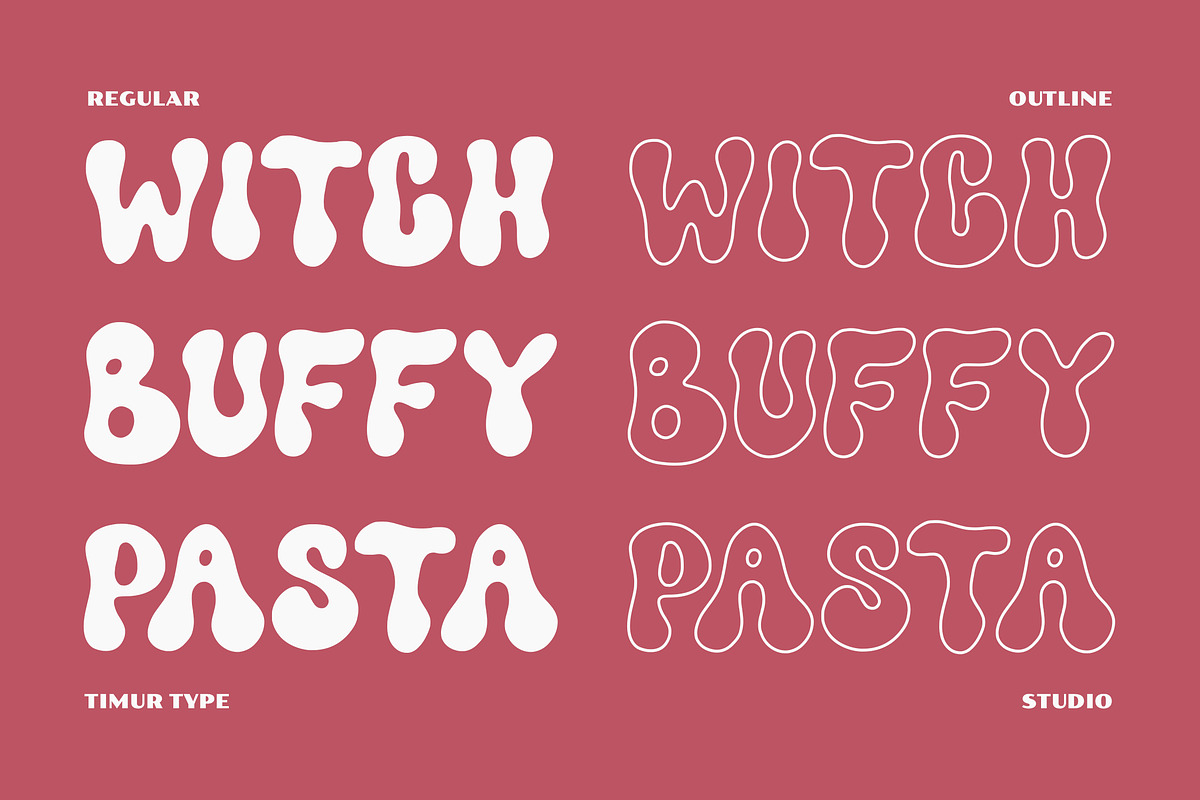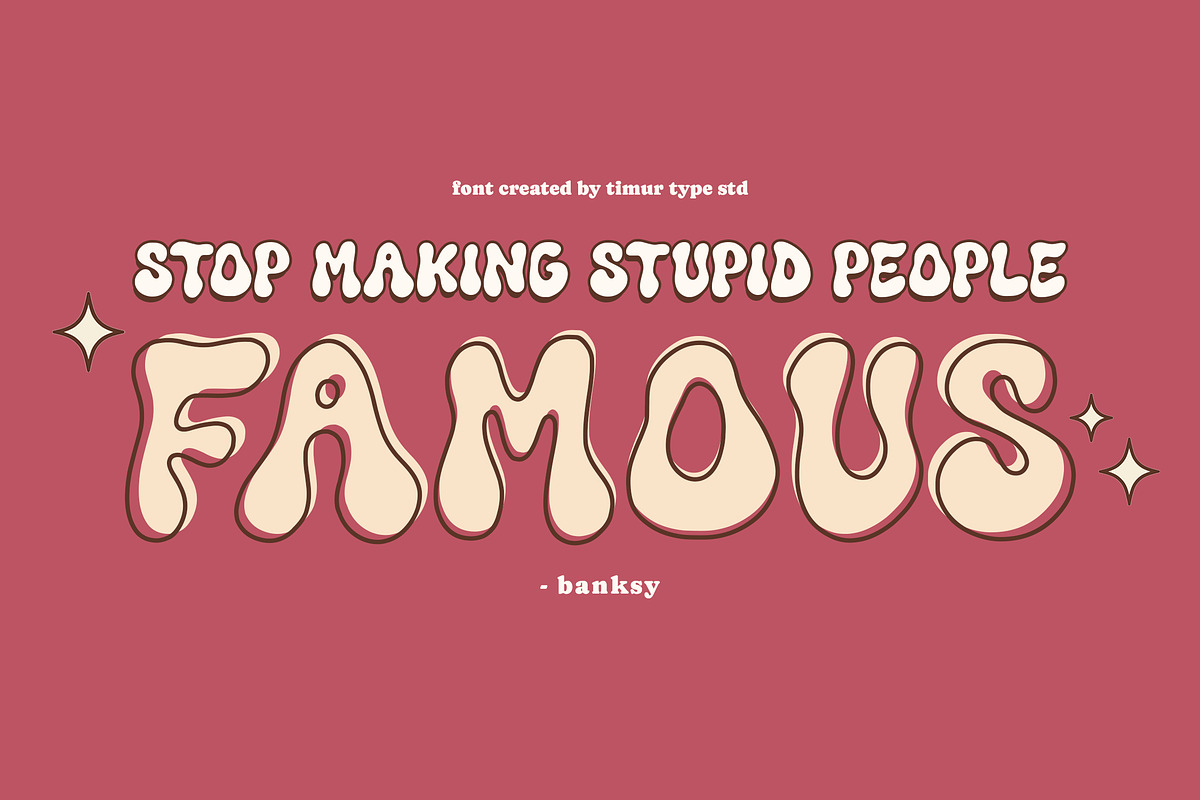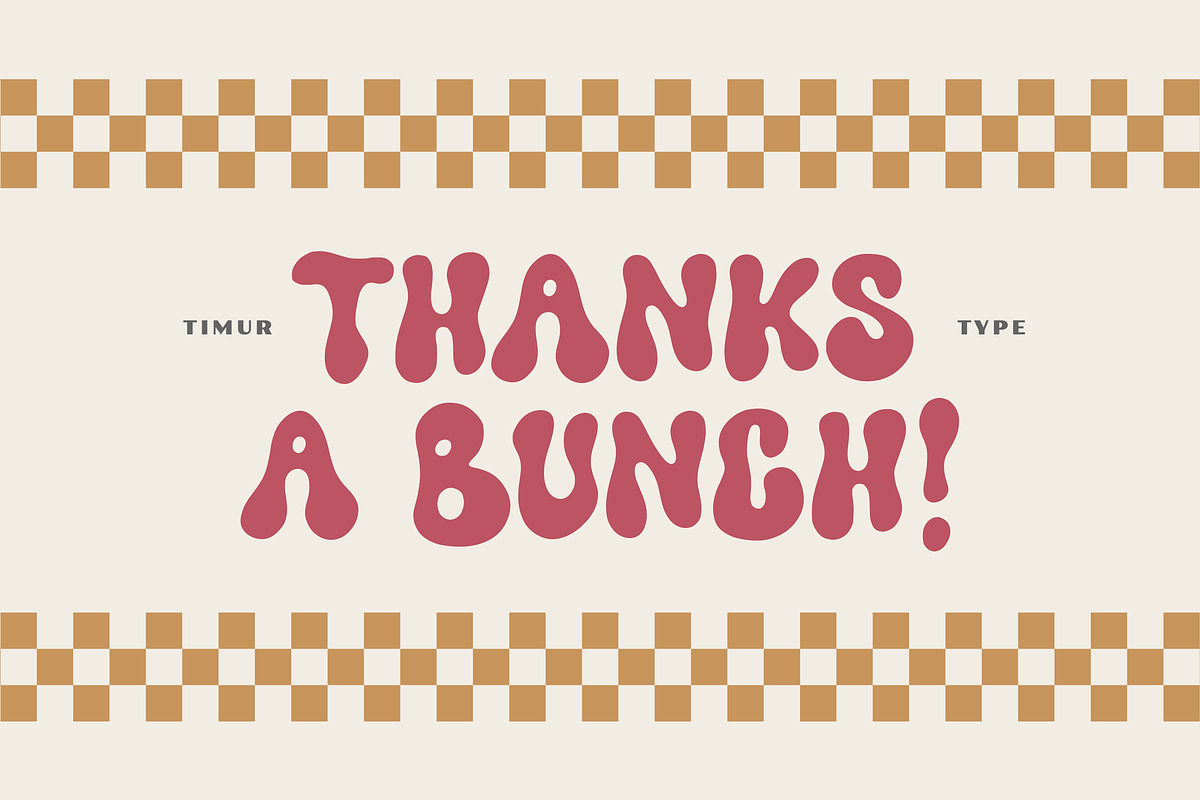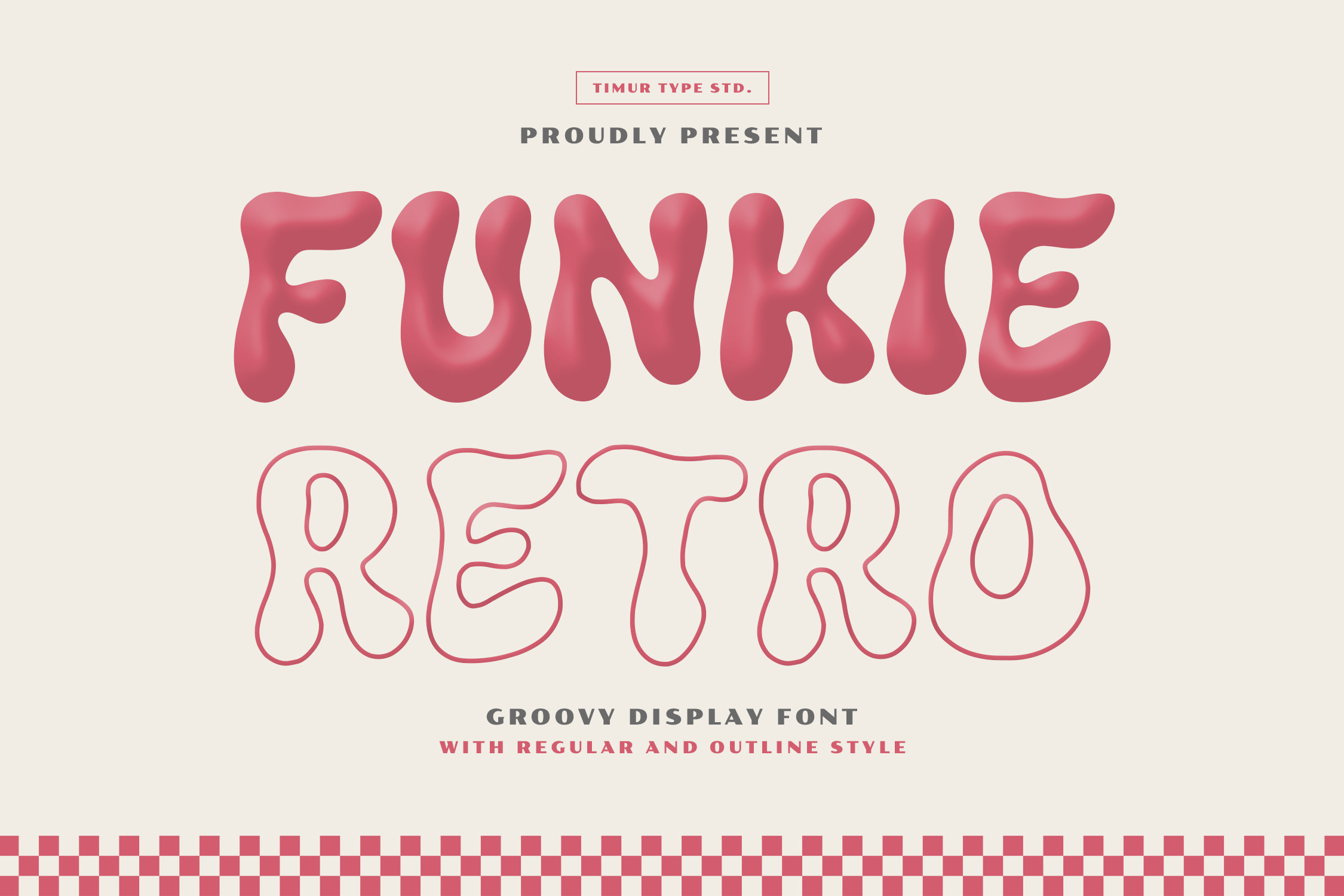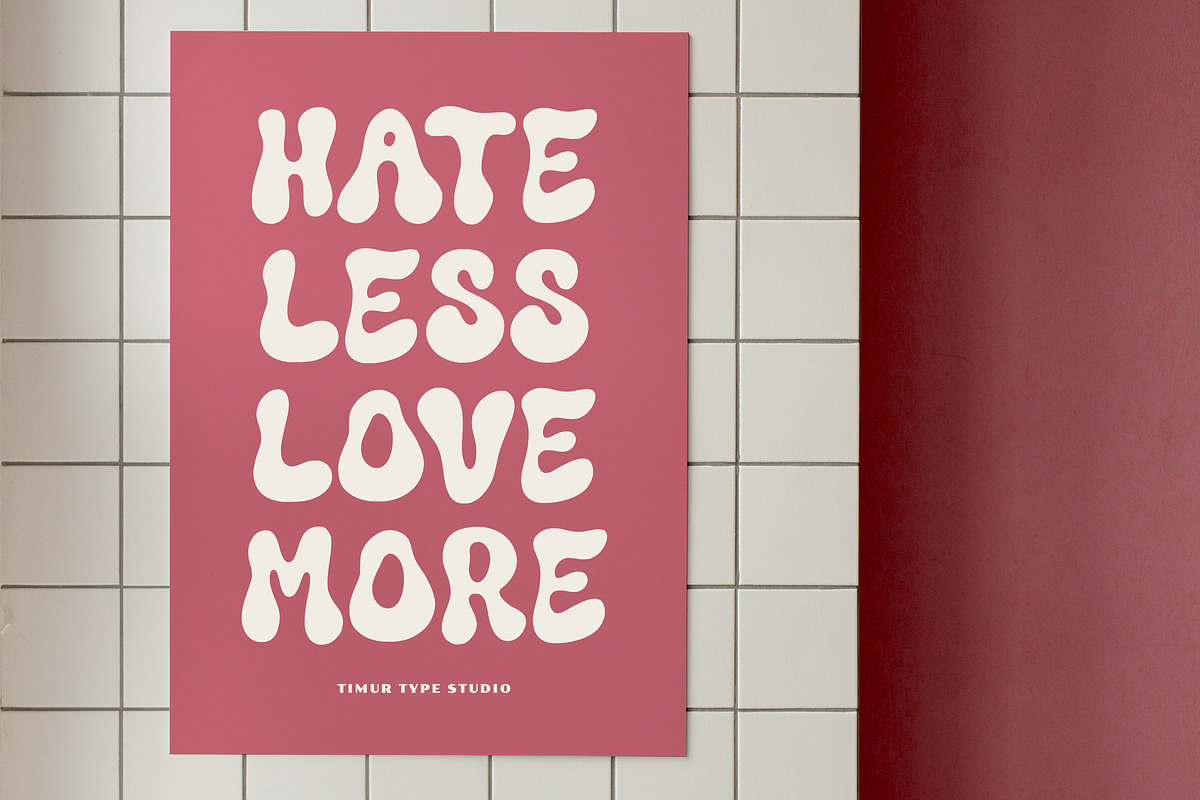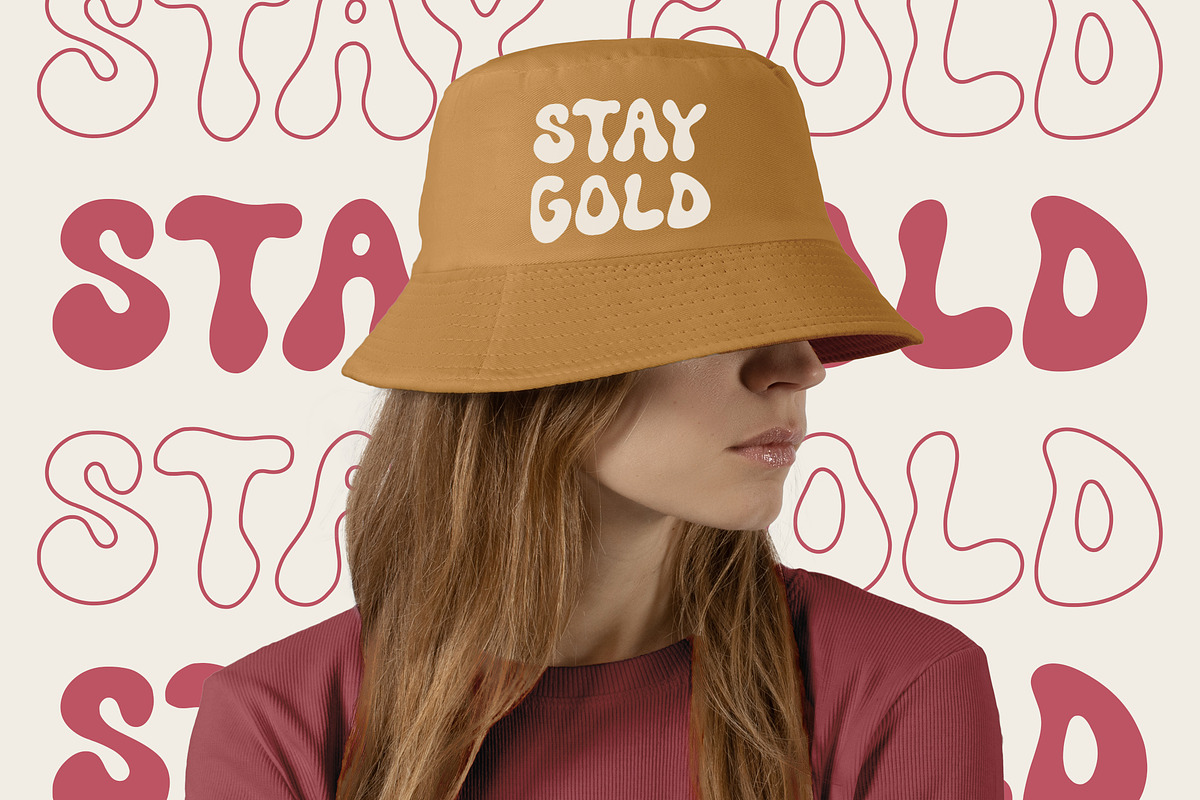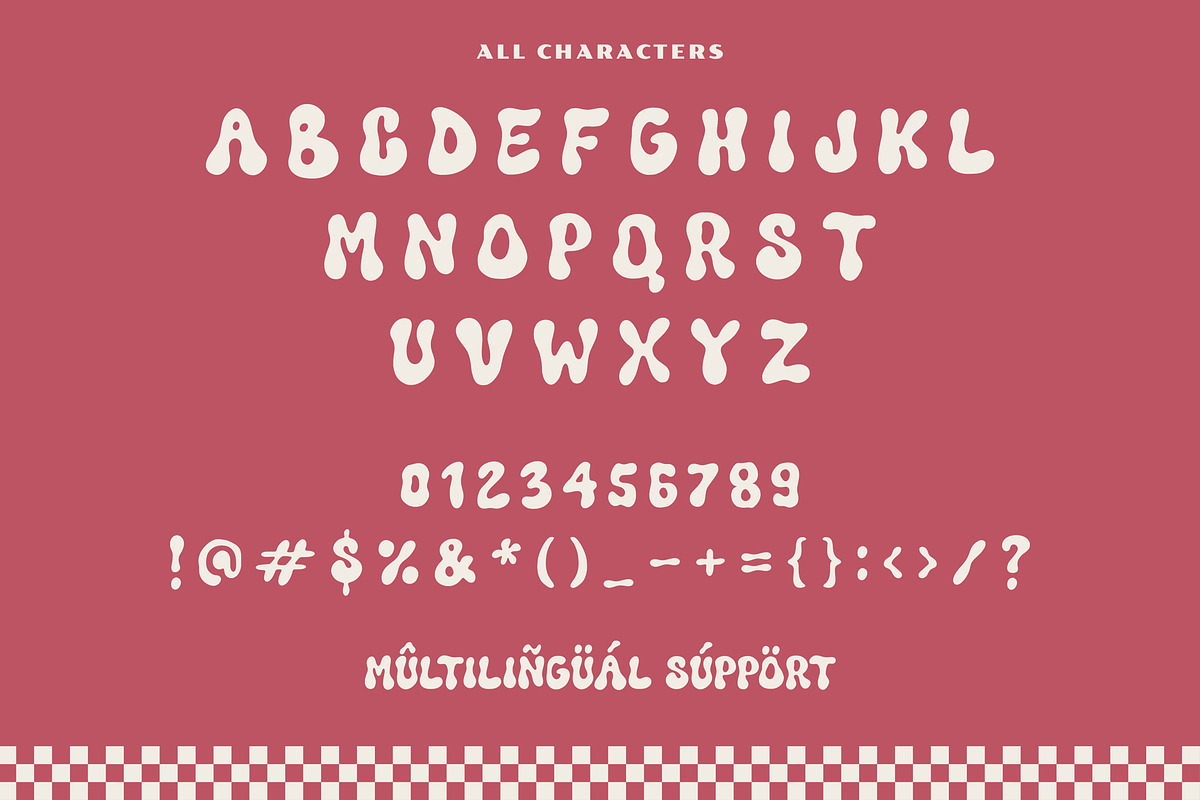
Funkie Retro - Groovy Display Font
Proudly Presenting Funkie Retro
Funkie Retro handwritten font display features lines with smooth and unique edges, giving it a distinctive look. This font resembles handwriting. With attention to detail and beautiful strokes in each line, this font adds a touch of sophistication and distinctive style to any design or text it is applied to. The distinctive striped nature of this font makes it perfect for creating attention-grabbing titles, logos, or other elements.